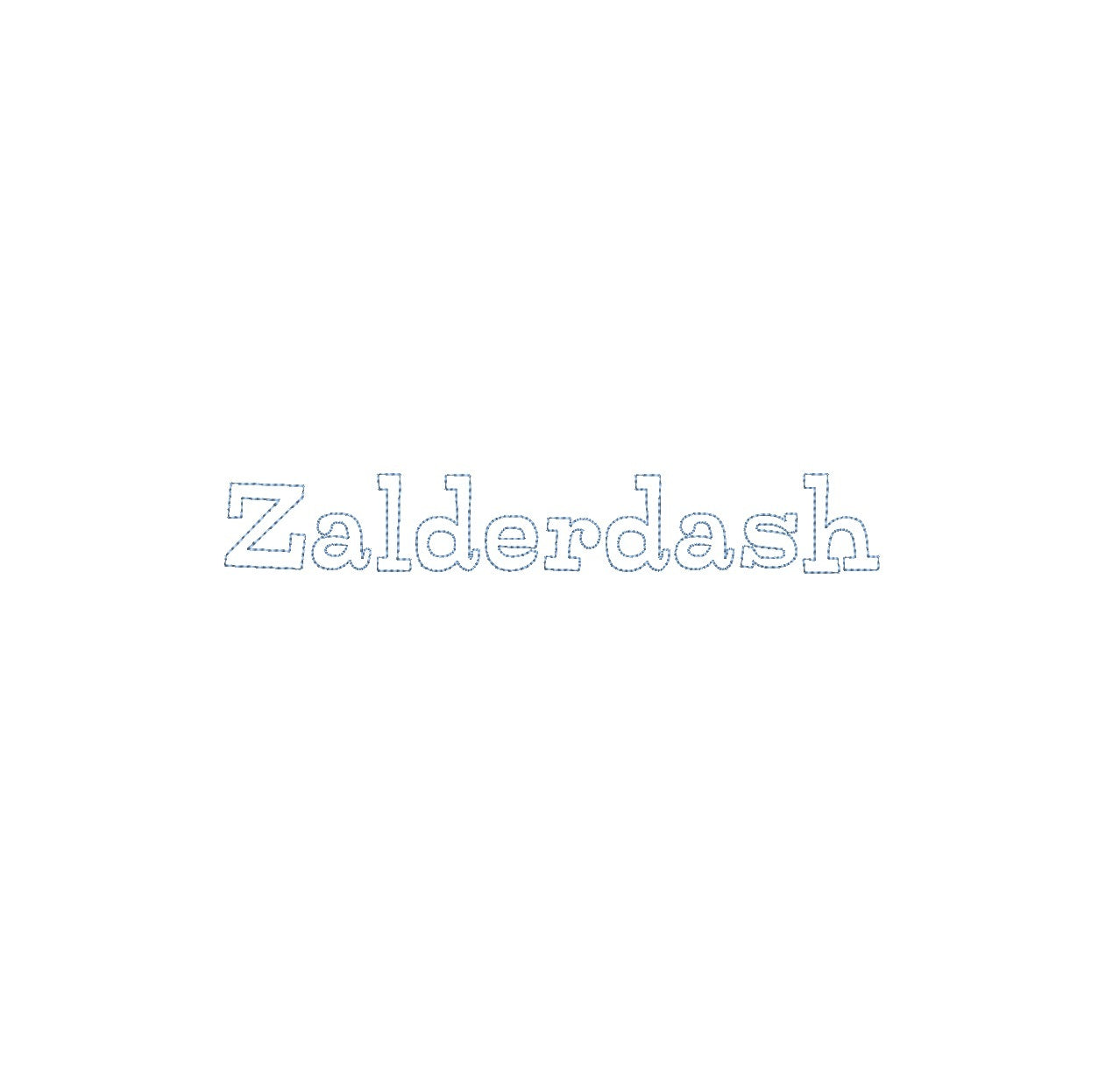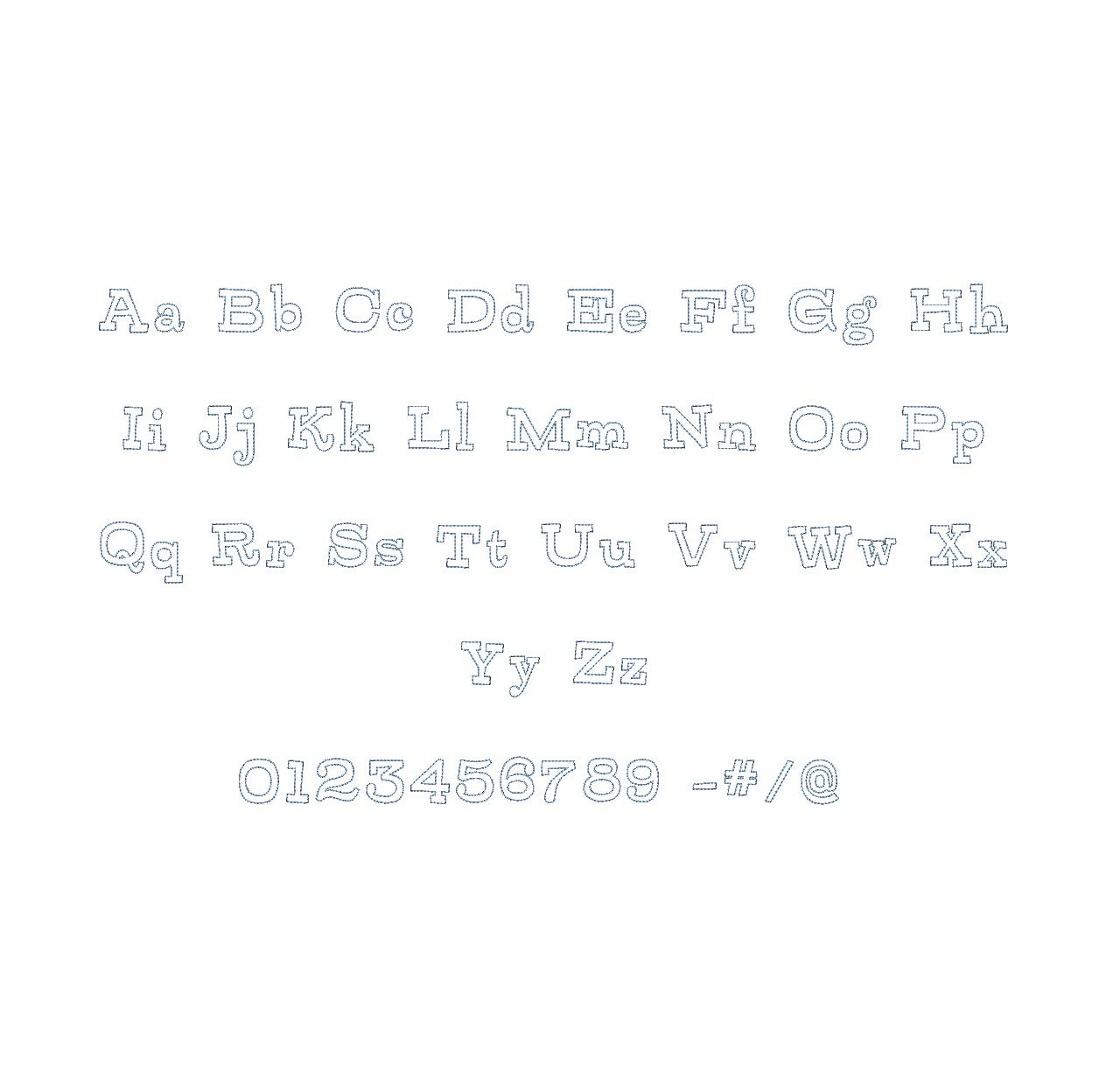
Elevate your embroidery with the Zalderdash Bean Stitch Outline ESA font, compatible with Wilcom Studio e4.5.6 and Hatch 3 versions and up. This font seamlessly merges whimsy and precision, infusing your designs with a unique aesthetic perfect for playful monograms and embellishments. Experience seamless compatibility for exceptional results and unleash a new level of stitching finesse. Transform your creations into embroidery masterpieces that radiate creativity and imagination. Elevate your projects with the Zalderdash Bean Stitch Outline ESA font and make your embroidery truly enchanting and unforgettable.